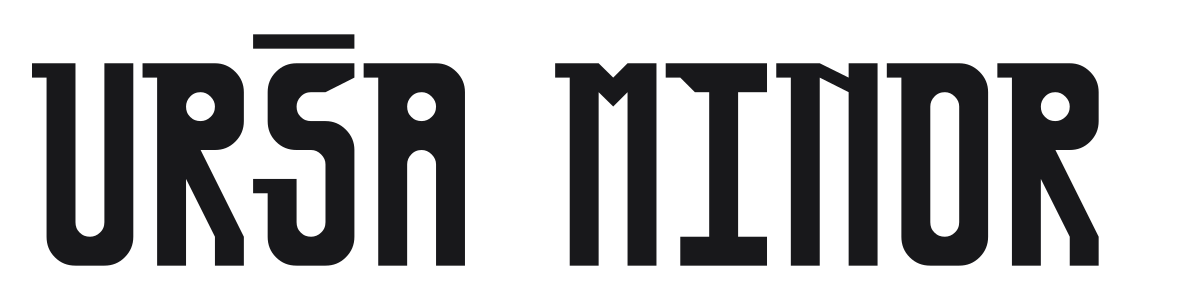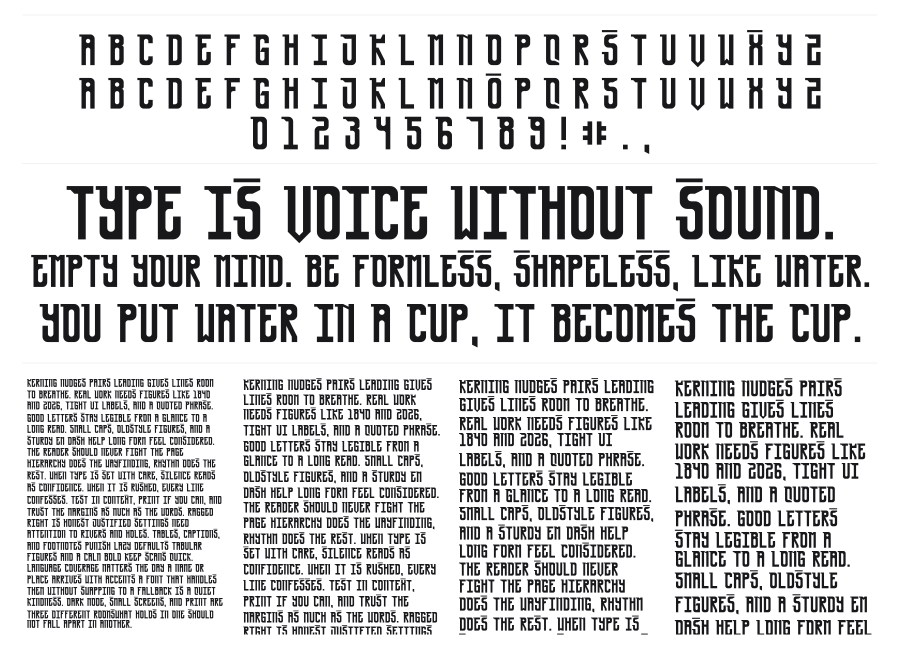
Ursa Minor
Ursa Minor is a condensed geometric display font with a bold, angular character that sits somewhere between Soviet constructivism and science fiction. Thick rectangular stems end in blunt flat serifs with sharp notched details that give it an almost mechanical, fabricated feel. Strong choice for posters, game titles, or any project that needs visual weight with a futuristic edge.